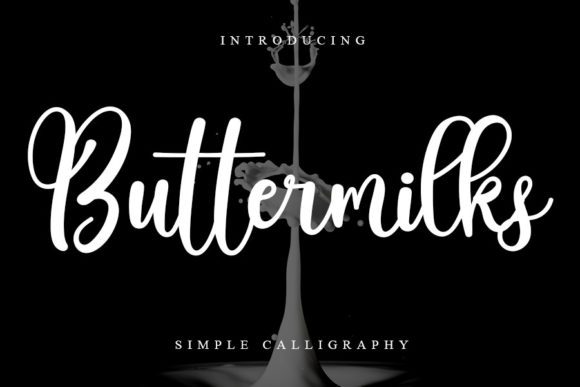
The Quest for Elegance: Discovering Buttermilks Font
I still remember the design project that led me to Buttermilks font. I was working on a wedding invitation suite, and my client was adamant about finding a script font that exuded elegance and sophistication. I scoured the internet, tried out countless fonts, but nothing seemed quite right. That was until I stumbled upon Buttermilks. Its delicate strokes and refined appearance instantly won me over, and I knew I had found the perfect fit for my project.
An Honest Review of Buttermilks Font
• ✨ Elegant and refined appearance, perfect for high-end designs
• ✅ Delicate strokes and subtle flair
• 💫 Works beautifully for titles, headings, and short paragraphs
• 🎨 Highly versatile, suitable for various design projects, from wedding invitations to branding materials
While Buttermilks font is an excellent choice for many design projects, it’s not without its quirks. For instance:
• 🤔 The font can be a bit finicky when it comes to kerning, so be prepared to make some manual adjustments.
• ⚠️ Some users may find the font a tad too delicate for certain design applications, such as body text or small captions.
3. Experiment with OpenType features, such as ligatures and stylistic alternates, to add visual interest to your design.
3. Explore the font’s glyphs and OpenType features, such as swashes and ornaments, to add a touch of elegance to your design.
The Story Behind Buttermilks Font
Buttermilks font was designed with the intention of creating a beautiful, elegant script font that would add a touch of sophistication to any design project. The designer aimed to craft a font that was both refined and delicate, with a subtle flair that would make it stand out.
Q: What is the best way to use Buttermilks font?
A: Buttermilks font works beautifully for titles, headings, and short paragraphs. It’s perfect for high-end designs, such as wedding invitations, branding materials, and luxury packaging.
Q: Can I use Buttermilks font for body text?
A: While Buttermilks font is elegant and refined, it may not be the best choice for body text. Its delicate strokes and subtle flair may make it difficult to read in large blocks of text.
Q: Is Buttermilks font suitable for digital use?
A: Yes, Buttermilks font is suitable for digital use. Its clear and refined appearance makes it perfect for website headers, social media graphics, and digital marketing materials.